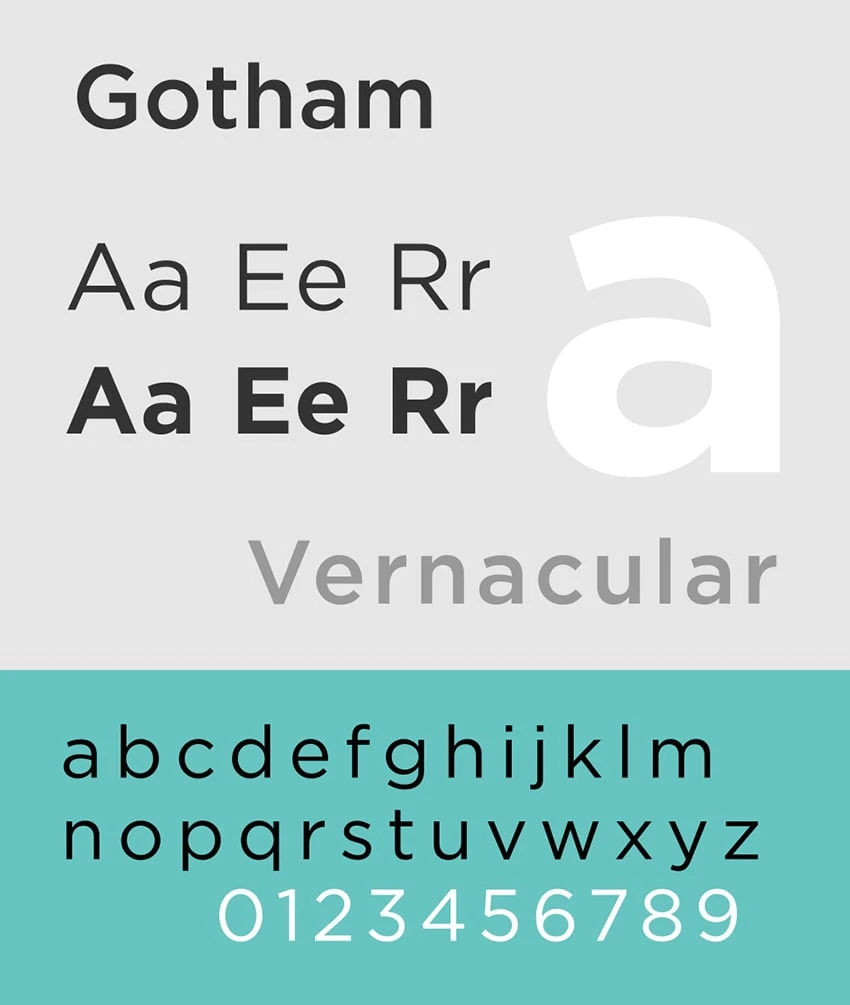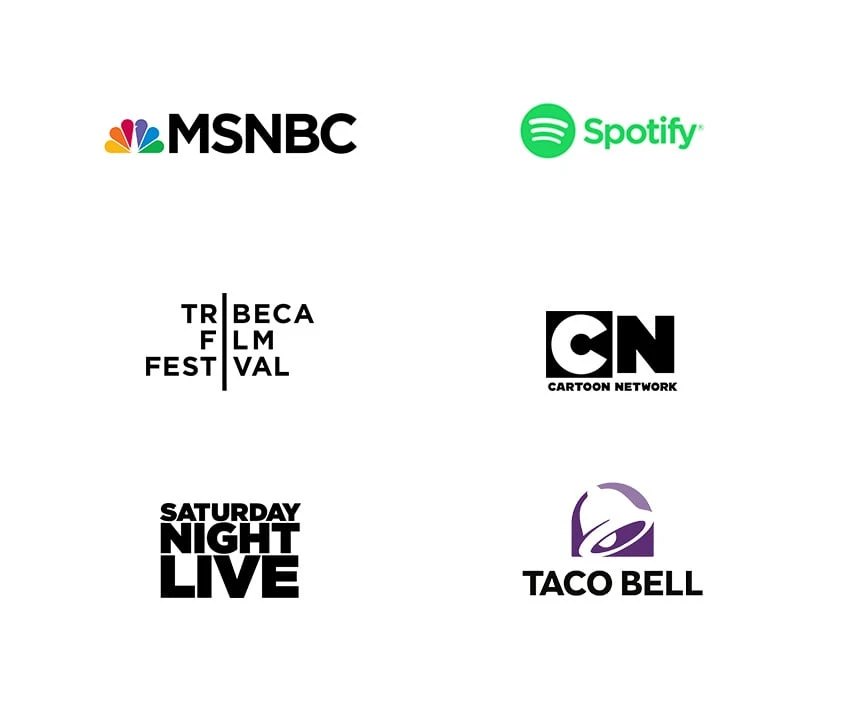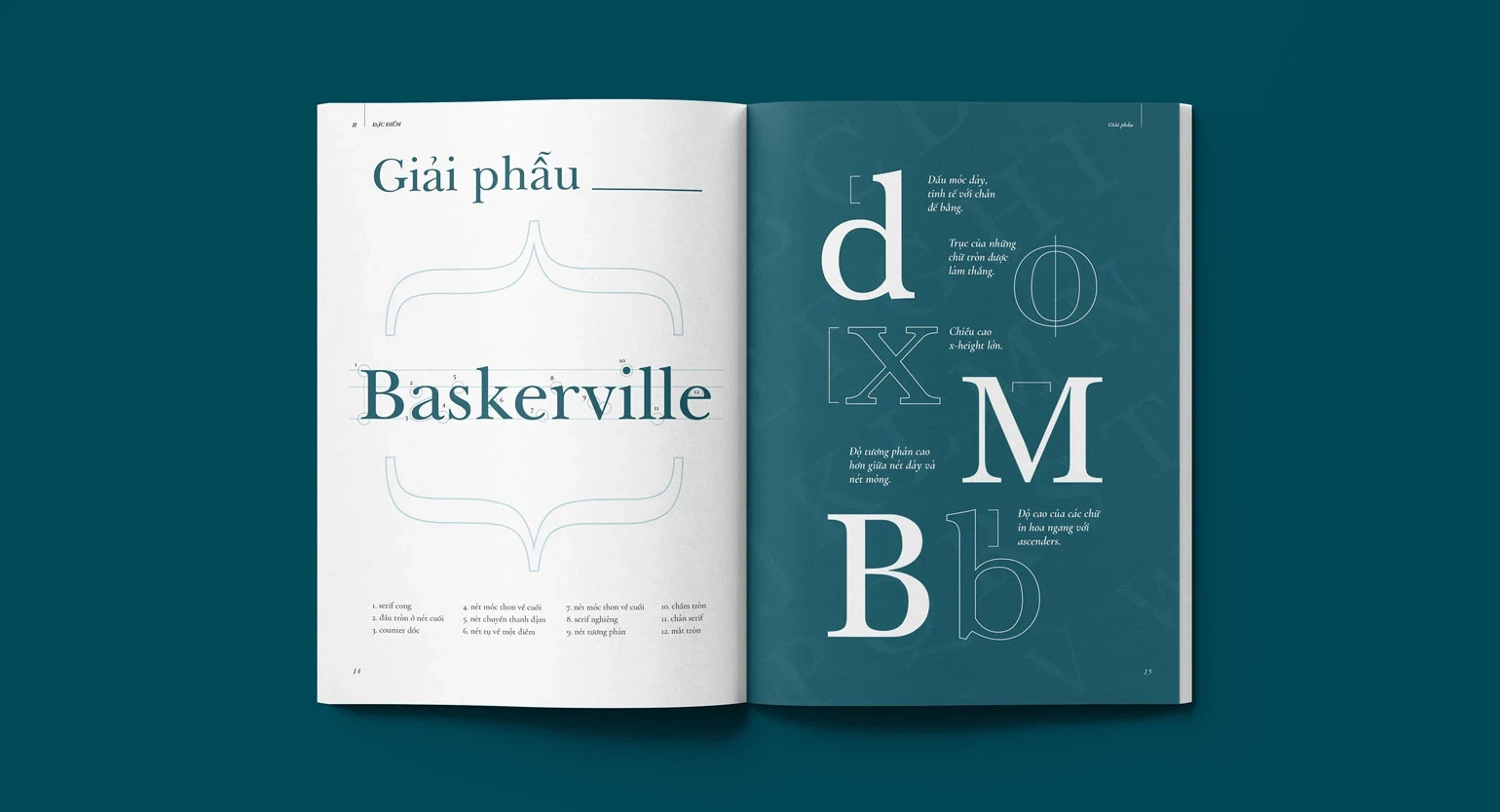
Fonts tell stories, shaping how people see your brand. Like a person's style, fonts create first impressions. Seemingly small details evoke emotions. Your logo's font is key to a quick, impactful intro.
Typography is branding's silent language, sparking feelings and building trust. The right font can show trust or creativity, while the wrong one can push people away. Whether starting from scratch or updating a logo, knowing your font options is important.
Let's explore seven top fonts for branding, but first, let's see why this choice is so critical.
What Makes a Font Good for Logo Design?
Not all beautiful fonts are created equal—especially when it comes to logos. A logo is your brand’s handshake. It's got to look good everywhere—from a website header to a business card, even on a billboard or an app icon. So the font you choose needs to hold up under pressure.
Here’s what makes a font great for logos:
- Readability: If people can’t read your brand name at a glance, the logo fails. Your font must remain legible even when scaled down.
- Timelessness: Fonts that chase trends age quickly. A timeless font ensures your logo stays relevant for years.
- Uniqueness: Your font should help you stand out, not blend in. It needs enough personality to be memorable, without being gimmicky.
- Scalability: Whether it’s a favicon or a banner, the font must look crisp and clear at any size.
- Simplicity: Logos with overly intricate fonts often lose clarity. Simple and bold fonts tend to perform better across mediums.
A winning font for logo design is one that reflects your brand personality while checking all the boxes above. Now, let’s explore the top 10 fonts that can help your brand speak clearly and confidently.
1. Helvetica: The Modern Classic
Helvetica, created in 1957, is a simple and versatile font similar to a white shirt. With clean lines and balanced spacing, brands such as Lufthansa, Jeep, and Nestlé often use it.
Its popularity comes from its ability to blend in and emphasize the brand's message with a neutral, confident feel, which is ideal for brands wanting a modern and professional image.
Since Helvetica is commonly used, it requires strong color and design to make your brand stand out. Helvetica is useful if you are looking for clarity, simplicity, and a modern feel.
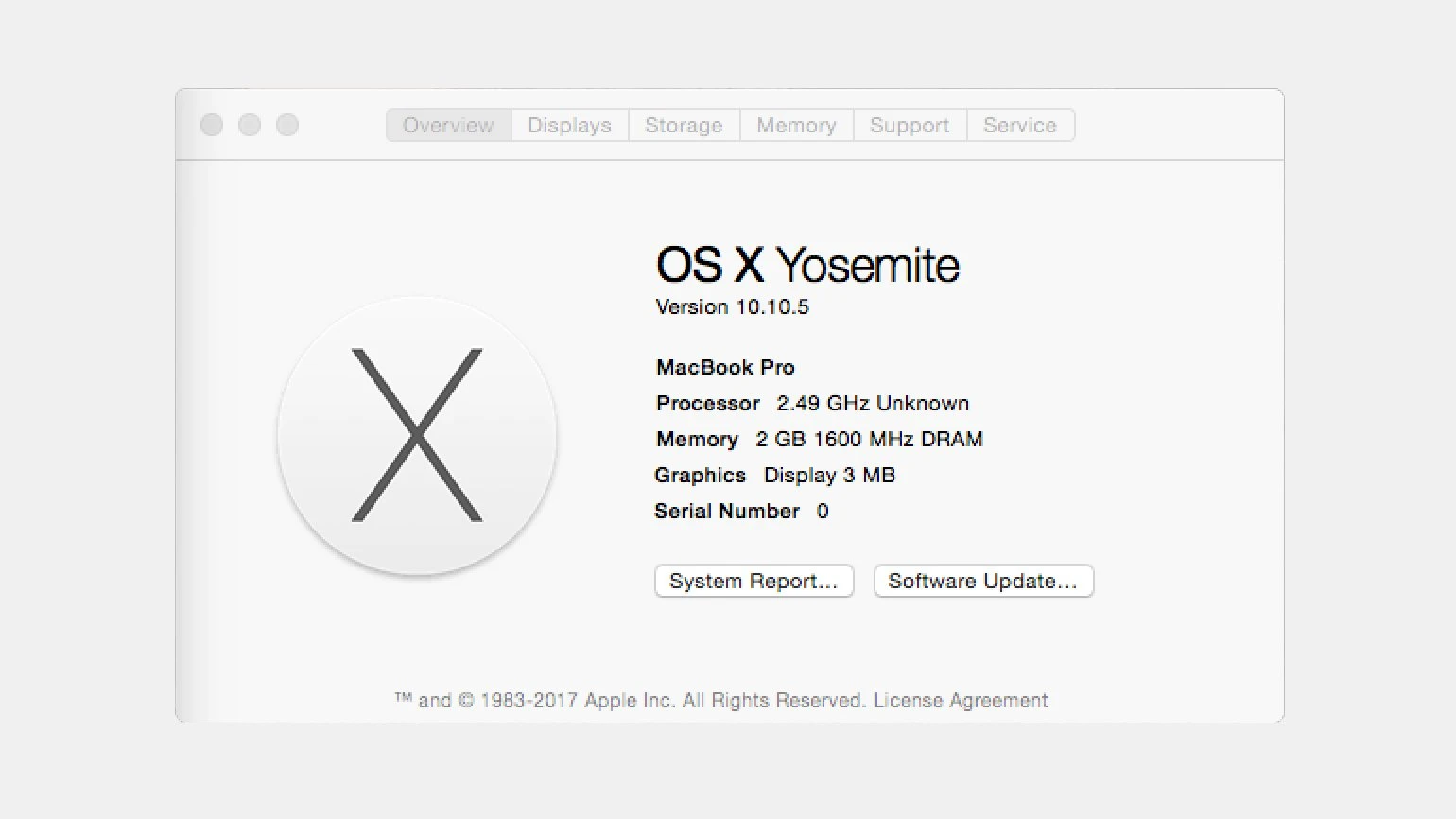
2. Futura: Geometry Meets Function
Futura, like modern architecture, is structured, geometric, and stylish. Paul Renner designed it in the 1920s using basic shapes, but it still feels modern and remains a key typeface.
Supreme, Nike, and Volkswagen use Futura for its clean, bold look. It feels both forward-thinking and reliable, perfect if your brand wants to bridge innovation and trust.
Futura suits logos aiming for a minimalist or tech-driven feel. Its precise geometry can give your logo a timeless yet innovative edge. The sharp angles and balanced proportions create a visual sense of order and professionalism.
Tip: Use Futura in uppercase for logos to create an authoritative, balanced effect. But it might not suit brands needing a warm, personal feel, as it can seem a bit cold.
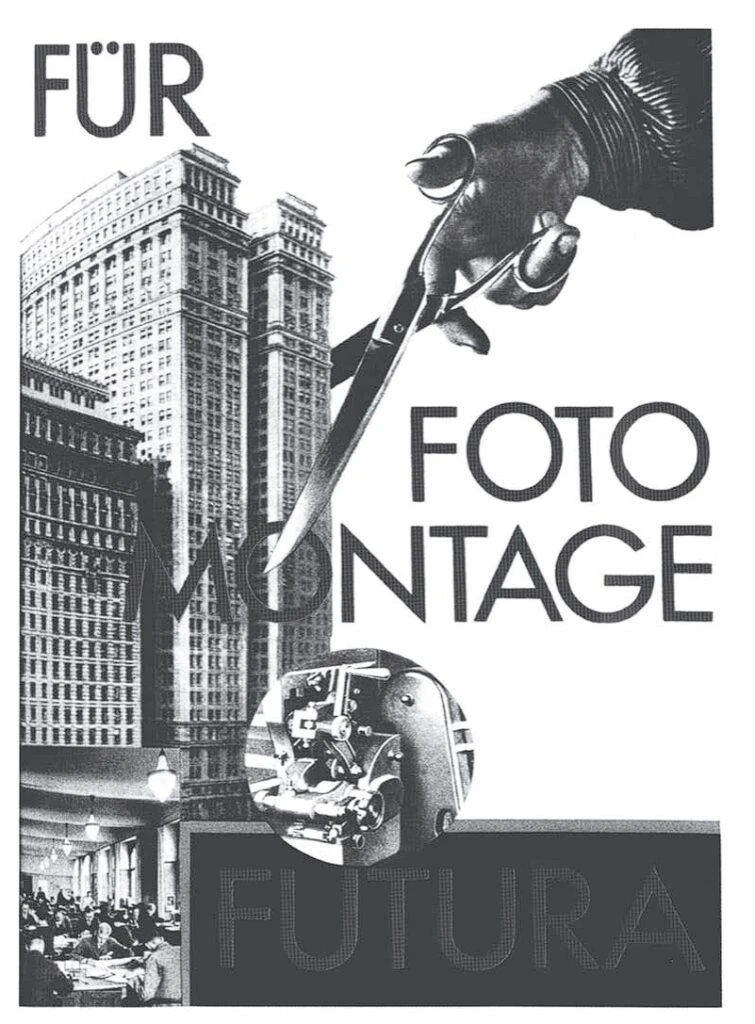
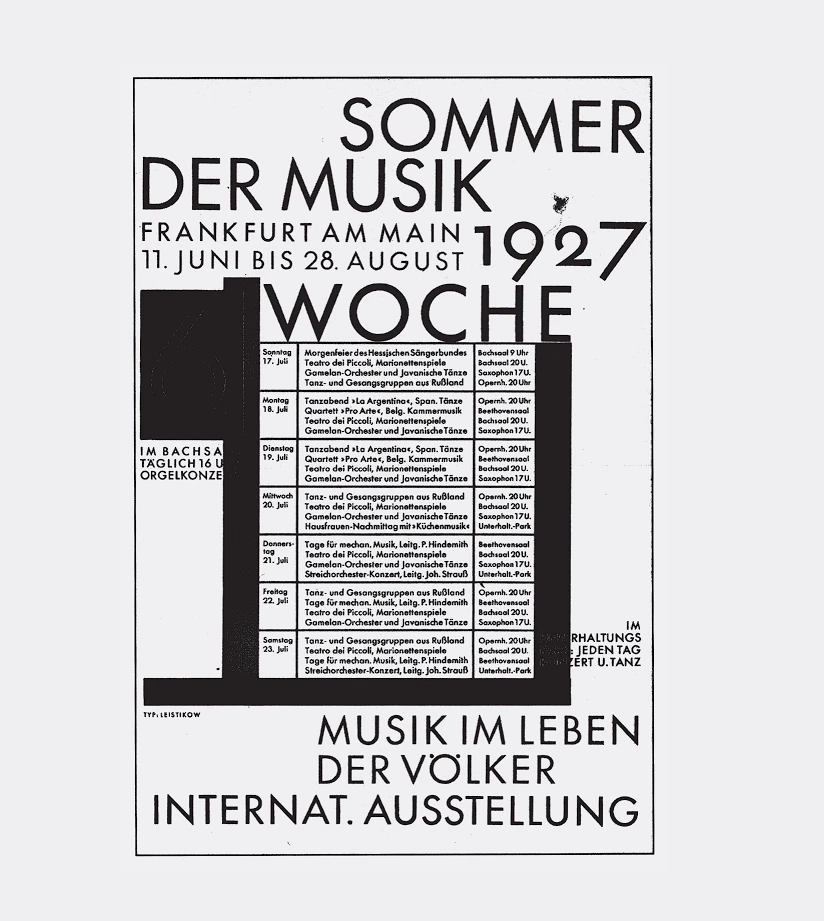
3. Garamond: Timeless Elegance
For brands aiming for a refined, smart, or classic feel, Garamond is a great choice. Its history goes back to the 1500s, but it still works well today because it avoids fleeting trends.
Big names like The New York Times, Abercrombie & Fitch, and early Apple used Garamond. Think of it as the font version of a custom suit: polished and stylish.
Garamond's readability and classic design make it good for logos. Its thin lines and curves communicate sophistication and trust, fitting for editorial brands, schools, or high-end products.
It's also good for brands with a story to tell. But it might not suit tech or very modern brands since it's more classic.
Mixing Garamond with a simple sans-serif font can balance tradition with a modern touch. If you're building a luxury or knowledge-focused brand, Garamond could be your top pick.
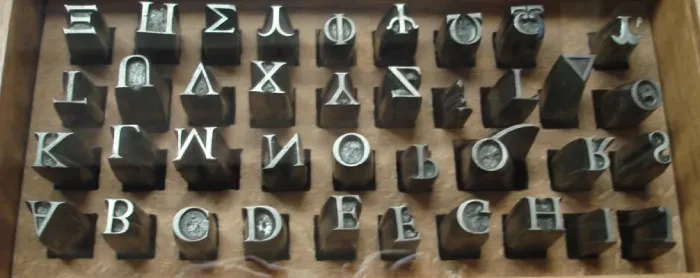
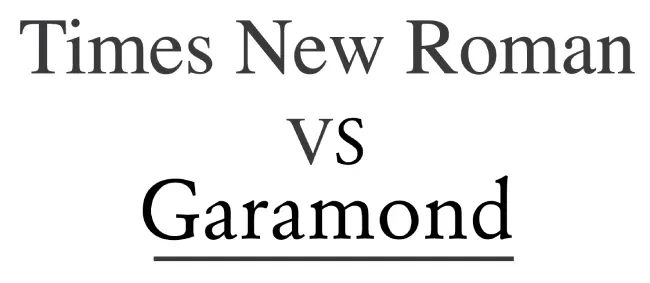
4. Montserrat: The Digital Darling
Montserrat is a favorite in digital design because it mixes old inspiration with a fresh, web-friendly feel.
This clean, round font is a bit like Gotham but more casual. Canva, Spotify, and many startups use it to appear current, energetic, and friendly.
Montserrat works well for headers, text, or logos, scaling easily on different devices, which is key for brand trust.
Its letterforms and spacing make it readable even when small, perfect for mobile sites.
For logos, Montserrat conveys confidence subtly and pairs well with other fonts, making it ideal for startups wanting a professional but youthful image.